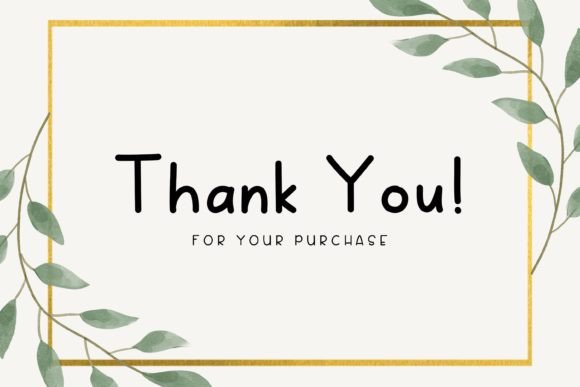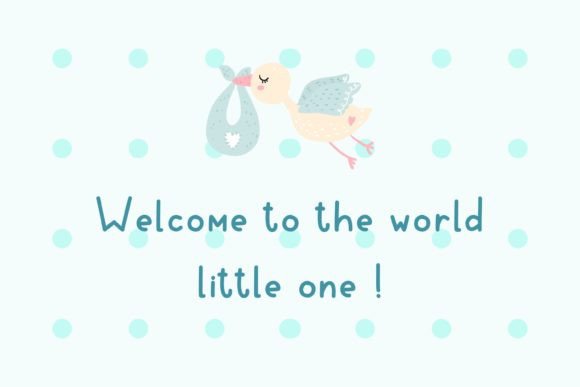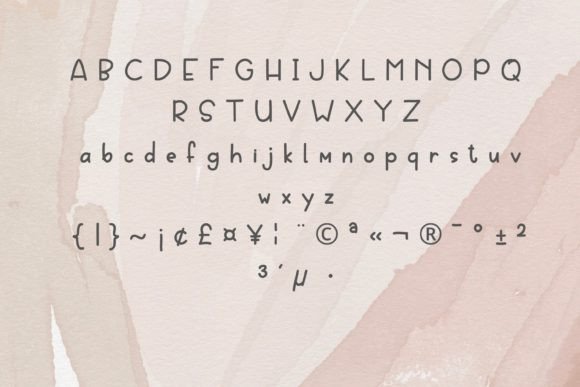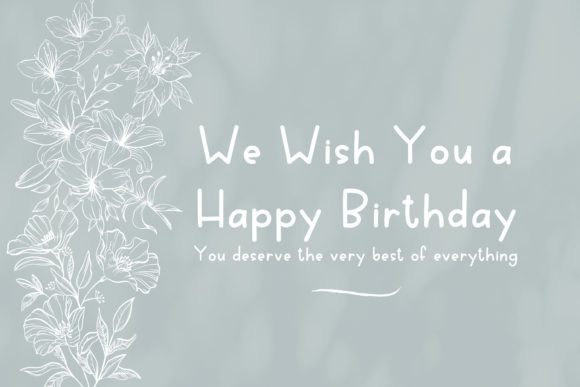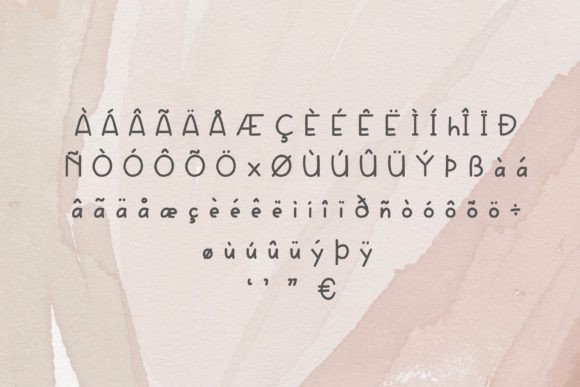
The Frosty Bold Font: A Cute and Friendly Companion for Your Designs
An Honest Review of Frosty Bold
Frosty Bold is a cute and friendly handwritten font that has won my heart with its curvy, readable, and down-to-earth style. Here are some aspects that I absolutely love:
- ✨ Readability: Frosty Bold is incredibly easy to read, making it perfect for body text or headings.
- ✅ Versatility: This font is versatile and can be used in various design projects, from crafts to digital designs.
- 💕 Aesthetic appeal: The font’s curvy and friendly style adds a touch of warmth to any design.
While Frosty Bold is an excellent font, it’s not without its quirks:
- 🤔 Limited formal use: Due to its friendly and informal style, Frosty Bold might not be the best choice for formal or corporate designs.
- ⚠️ Glyph limitations: While Frosty Bold has a range of glyphs, it might not have all the special characters or ligatures you need for a specific project.
- Experiment with OpenType features like ligatures and stylistic alternates to add more flair to your text.
The Story Behind Frosty Bold
Frosty Bold was designed with the intention of creating a friendly and approachable font for crafters and designers. The designer aimed to create a font that would evoke a sense of warmth and coziness, perfect for projects that require a personal touch.
| Font Name | Frosty Bold Font |
| Author | nuraisyahamalia1729 |
| What is Frosty Bold? | Frosty Bold is a cute and friendly handwritten font featuring a curvy, readable, and down-to-earth style. |
| Does Frosty Bold support OpenType features? | Yes, Frosty Bold supports OpenType features, including ligatures and stylistic alternates. |